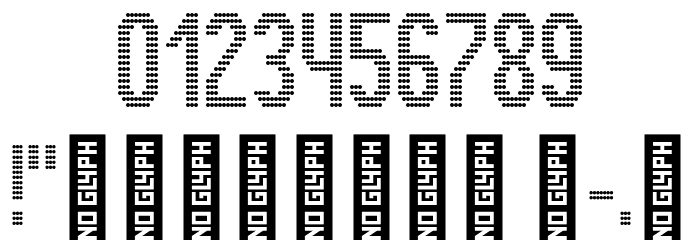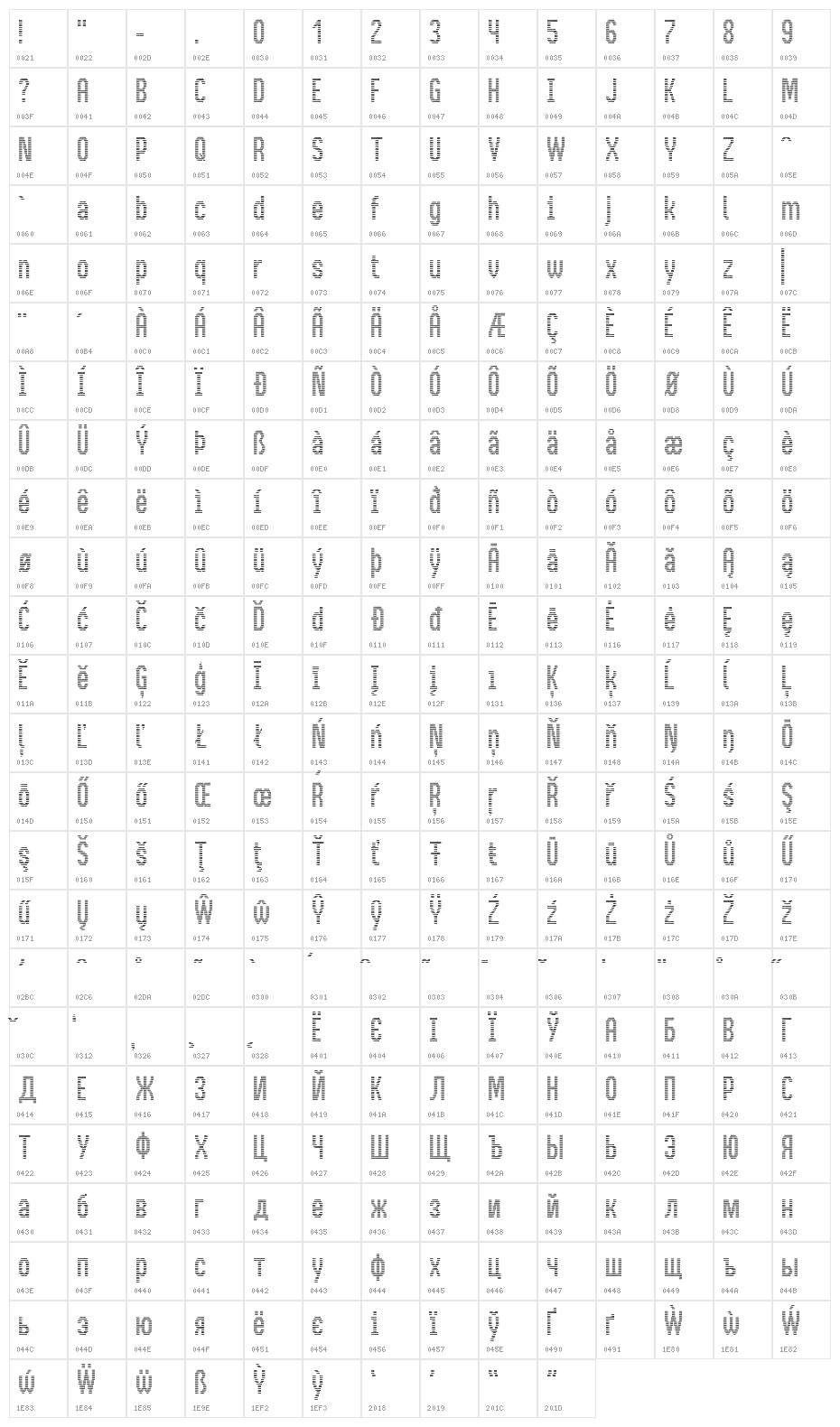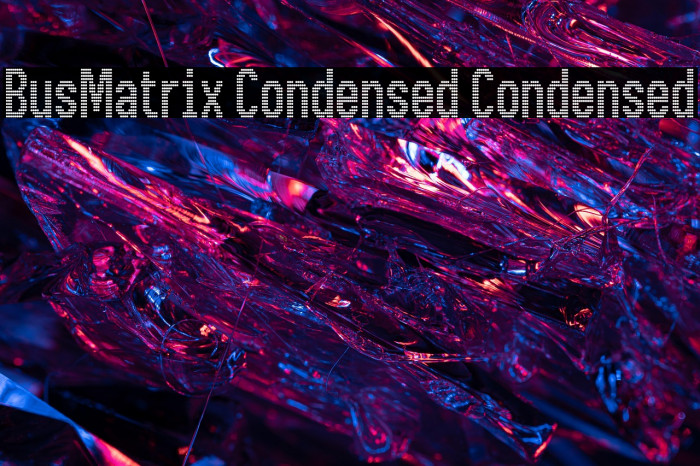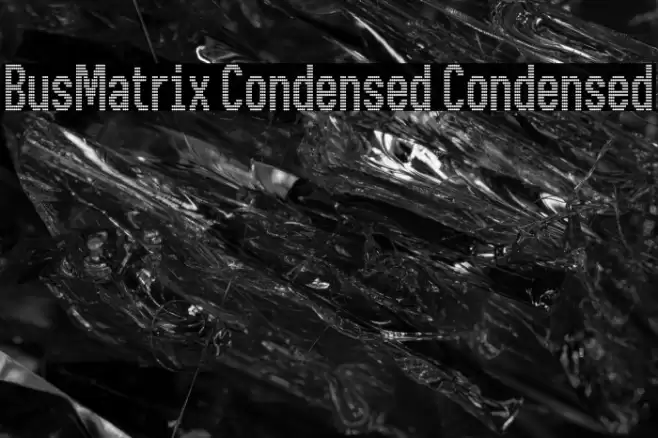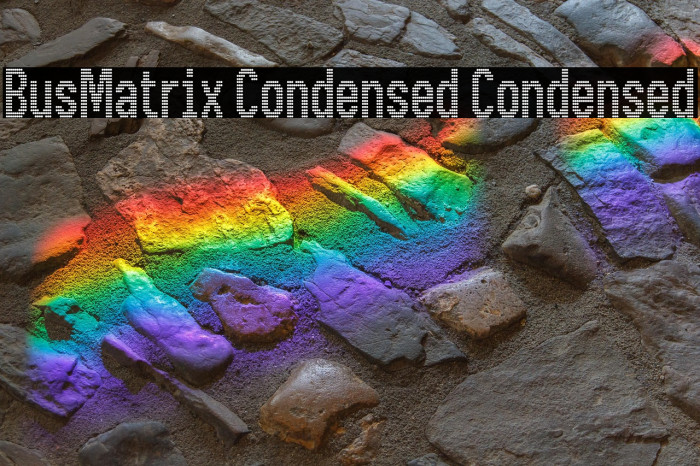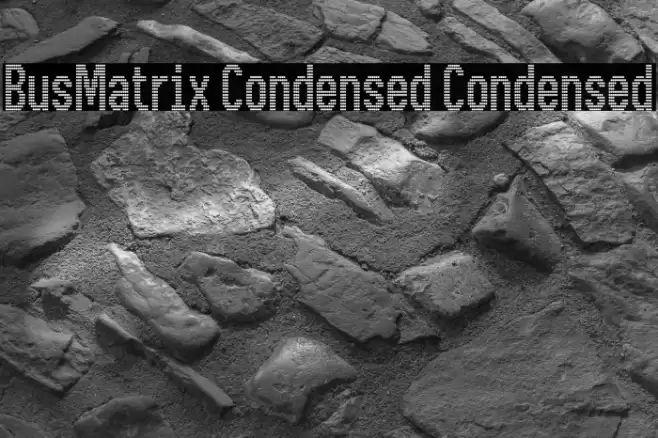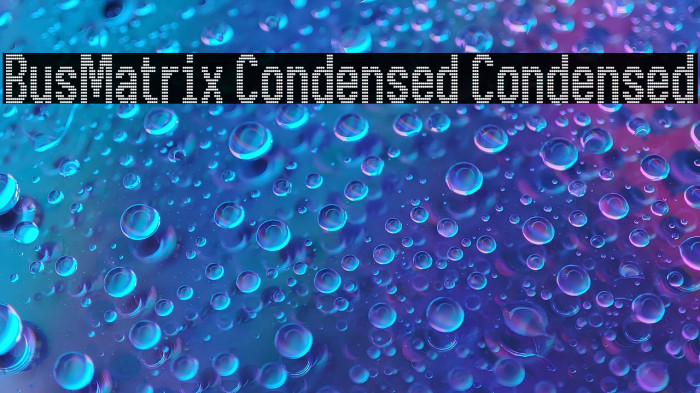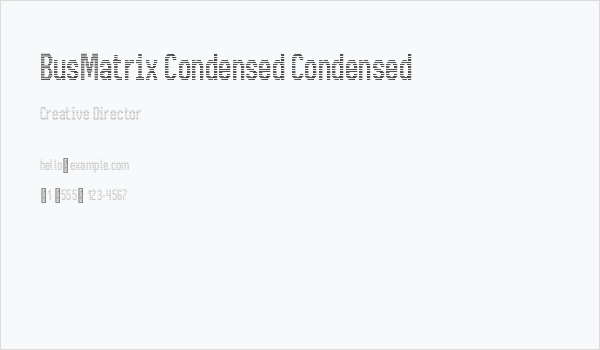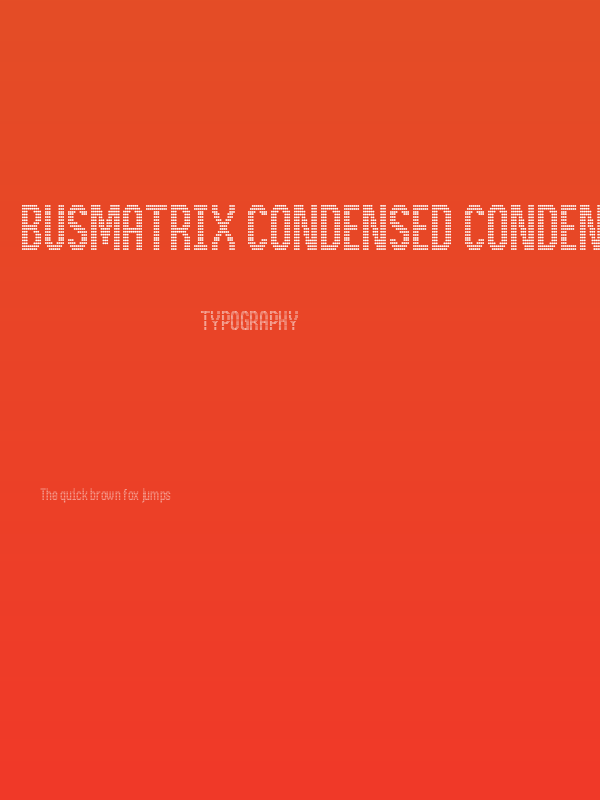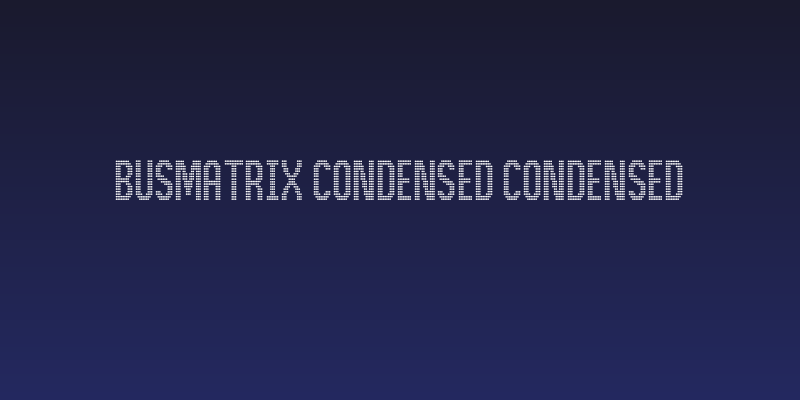
BusMatrix Condensed Font
BusMatrix Condensed Description
This font features a unique dot matrix style, reminiscent of old digital displays and retro technology. Each character is constructed from a grid of small, evenly spaced dots, creating a pixelated effect. The uppercase and lowercase letters maintain a consistent height, with a condensed width that gives the font a compact appearance. The numbers and special characters follow the same design, ensuring uniformity across all glyphs. This font's distinct style makes it stand out, offering a nostalgic yet modern aesthetic.
| Use Case | Logos, Posters, Digital Art |
| Proposed Projects | Ideal for projects that require a retro or tech-inspired theme, such as digital art, video game graphics, or themed event posters. |